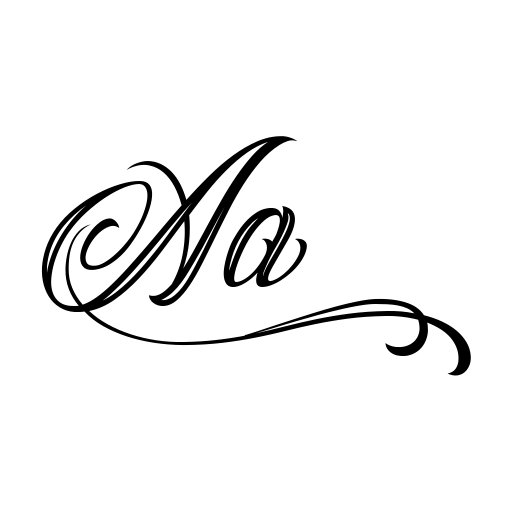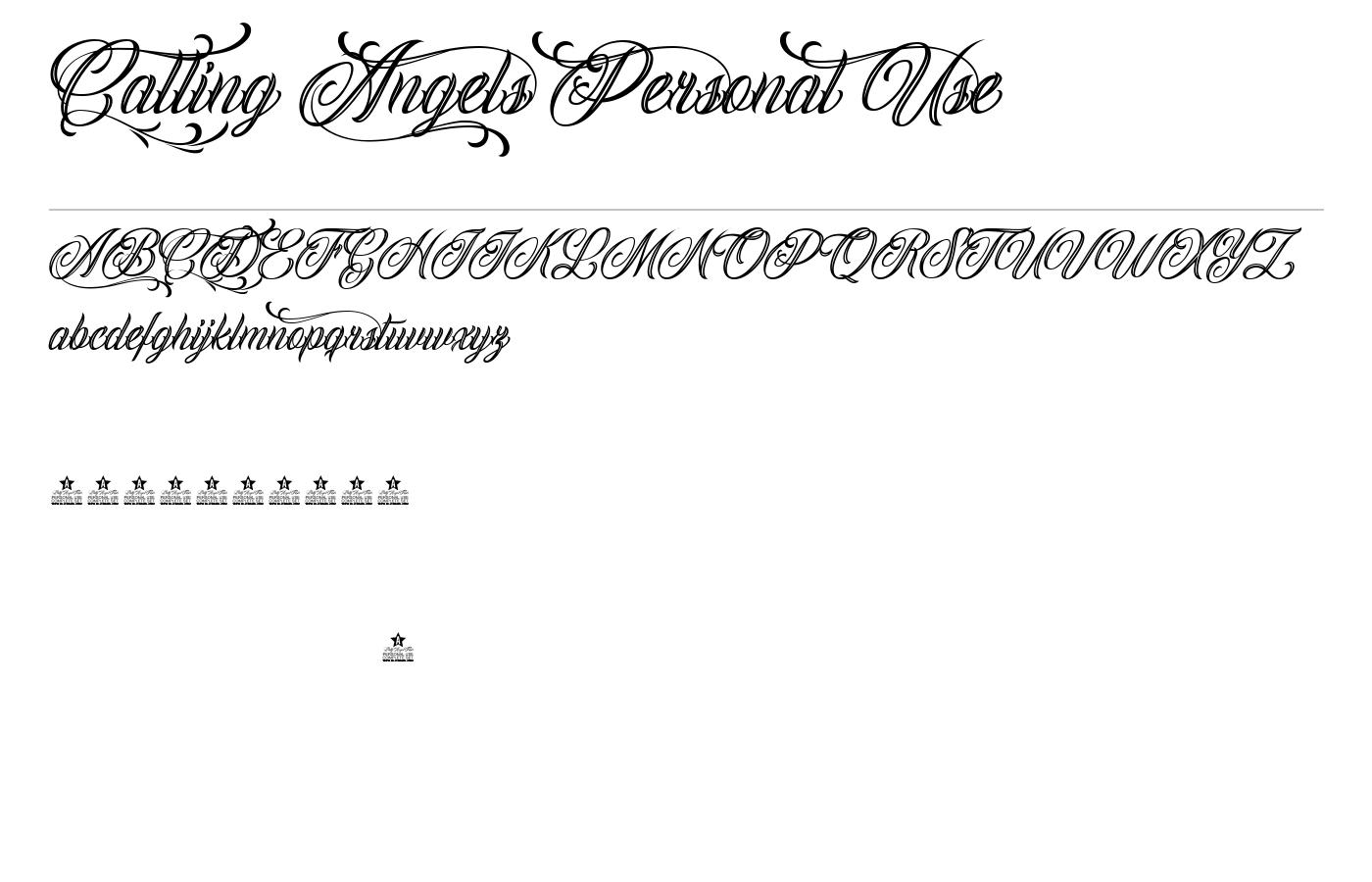
Calling Angels is an elegant script font with intricate, flowing letterforms and decorative swashes that evoke a sense of sophistication and romance. Its fine, high-contrast strokes and graceful connections make it ideal for invitations, luxury branding, and other designs that seek a refined, artistic feel. This font works best in display settings such as logos and headers where its ornamental beauty can shine without sacrificing readability.
Calling Angels Personal Use Font
About Calling Angels Personal Use Font
| Font family | Calling Angels Personal Use Font |